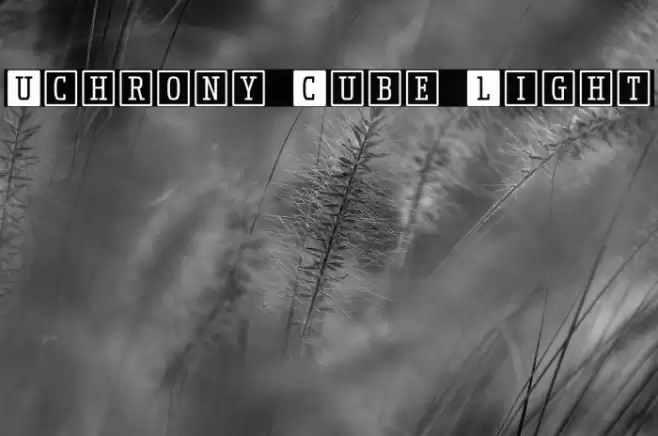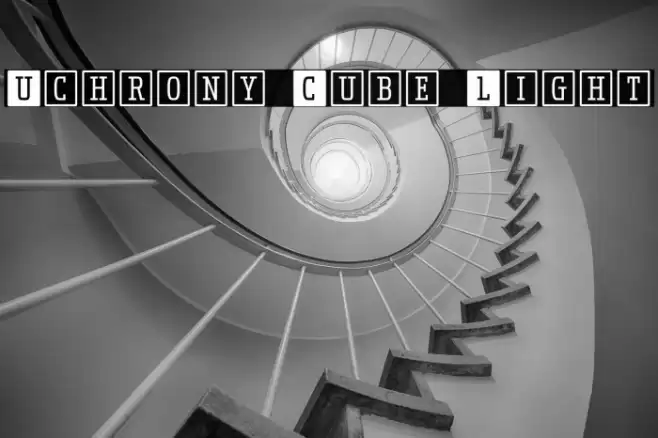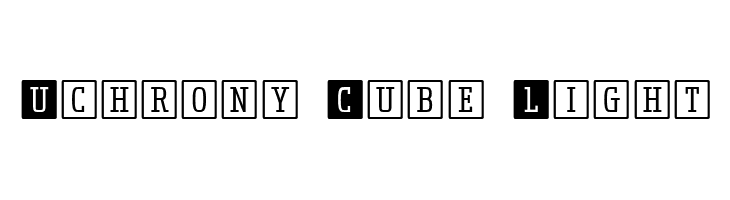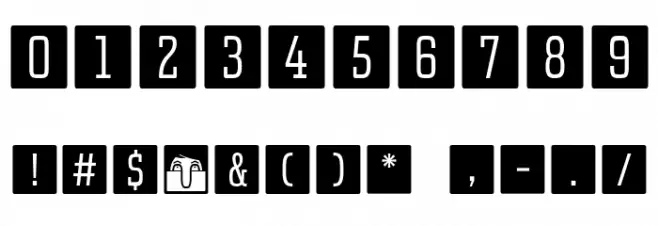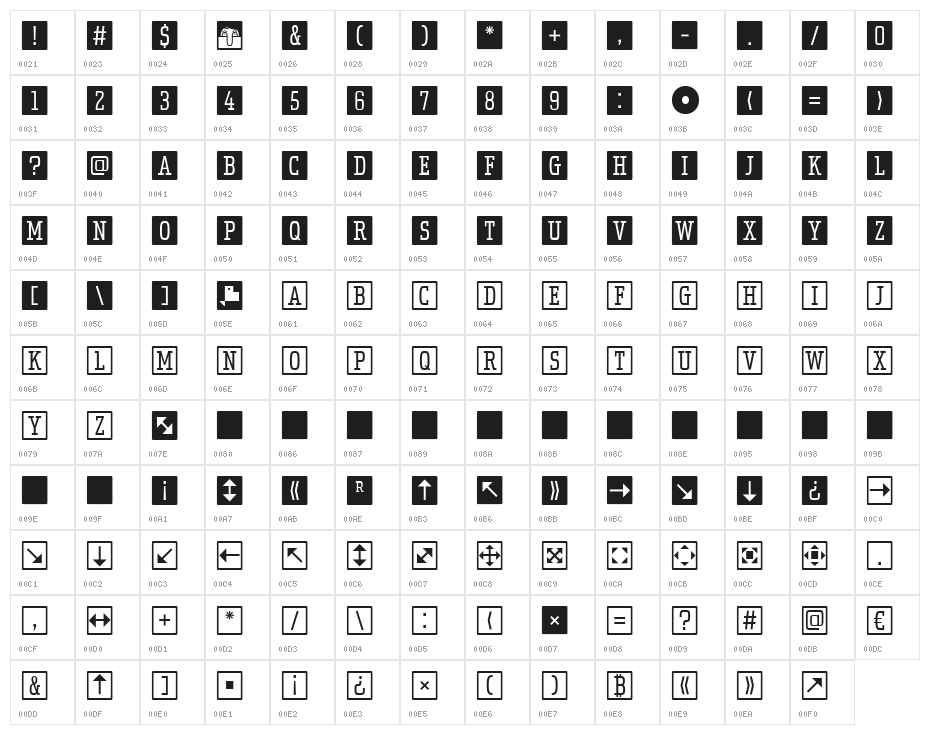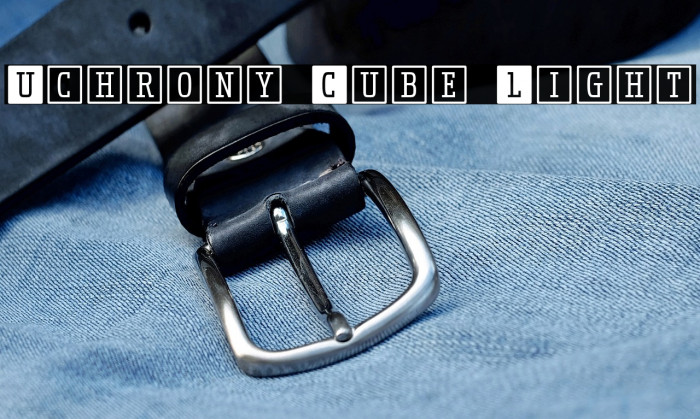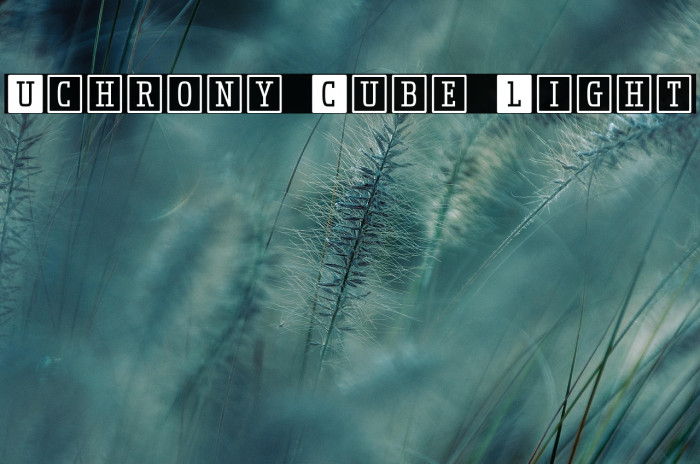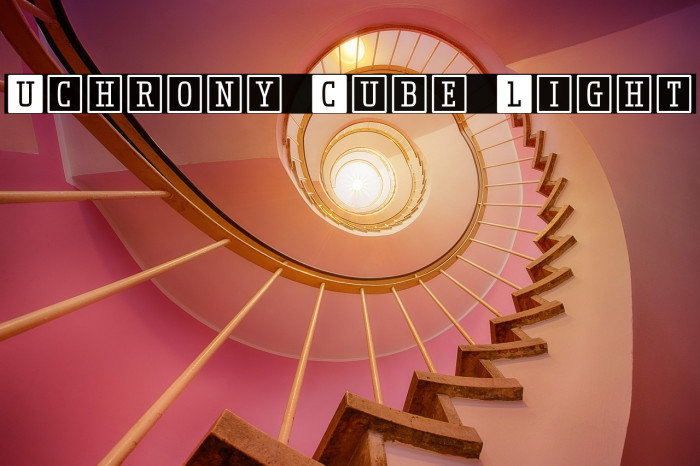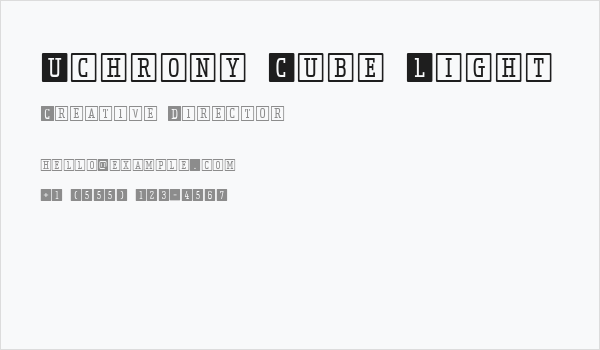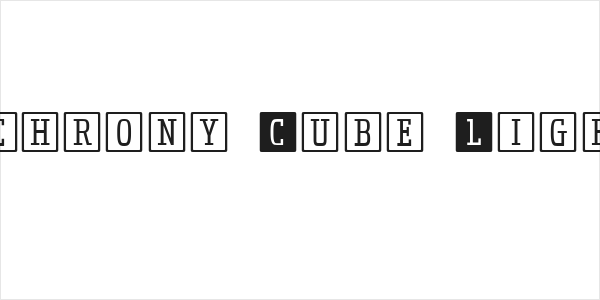
Uchrony Cube Light フォント
Uchrony Cube Light 説明
- ( Uchrony is a condensed proportion slab serif typeface. The font family is made up of 3 styles, Roman, Small Caps & Italics, with 6 weights each (Extra Light, Light, Regular, Medium, Bold and Extra Bold). FREE )
- フォント: Uchrony Cube Light